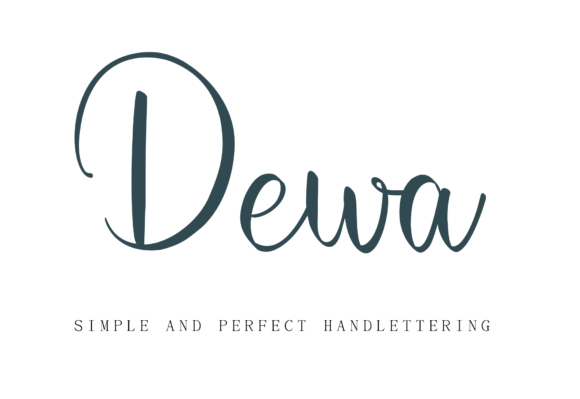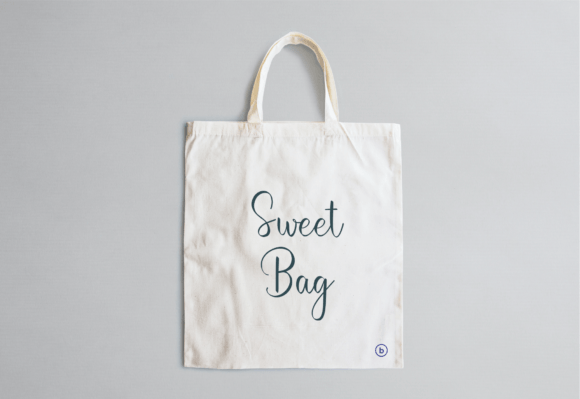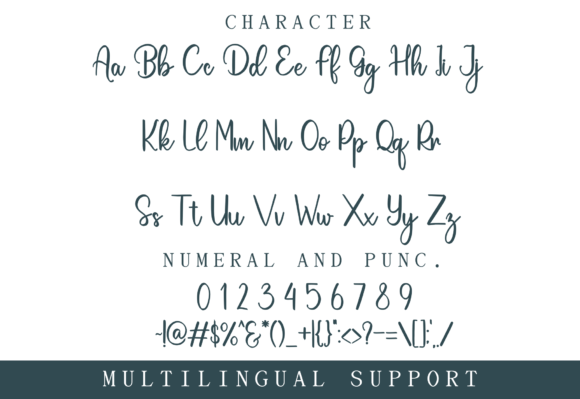
Dewa Font
About Dewa Font
“Dewa” is a gorgeous and elegant handwritten font that brings a charming and sophisticated touch to your design projects. By adding this font to your collection, you have a versatile tool that can be used for a variety of creative endeavors.
The elegant strokes and graceful curves of “Dewa” contribute to its visual appeal, making it suitable for projects where a charming and refined appearance is desired. Whether you’re working on invitations, branding, packaging, or any other design, this font adds a touch of elegance and personality.
Its versatility allows it to adapt to different design contexts, giving you the freedom to experiment and explore its potential across various mediums. “Dewa” stands out as a font that can enhance the overall aesthetic of your creations, providing a delightful and charming presence.
In summary, “Dewa” is more than just a font; it’s a design asset that brings beauty and charm to your projects. Whether used for invitations or branding, its gorgeous and elegant handwritten style makes it a delightful choice for those seeking a font that exudes sophistication and charm.